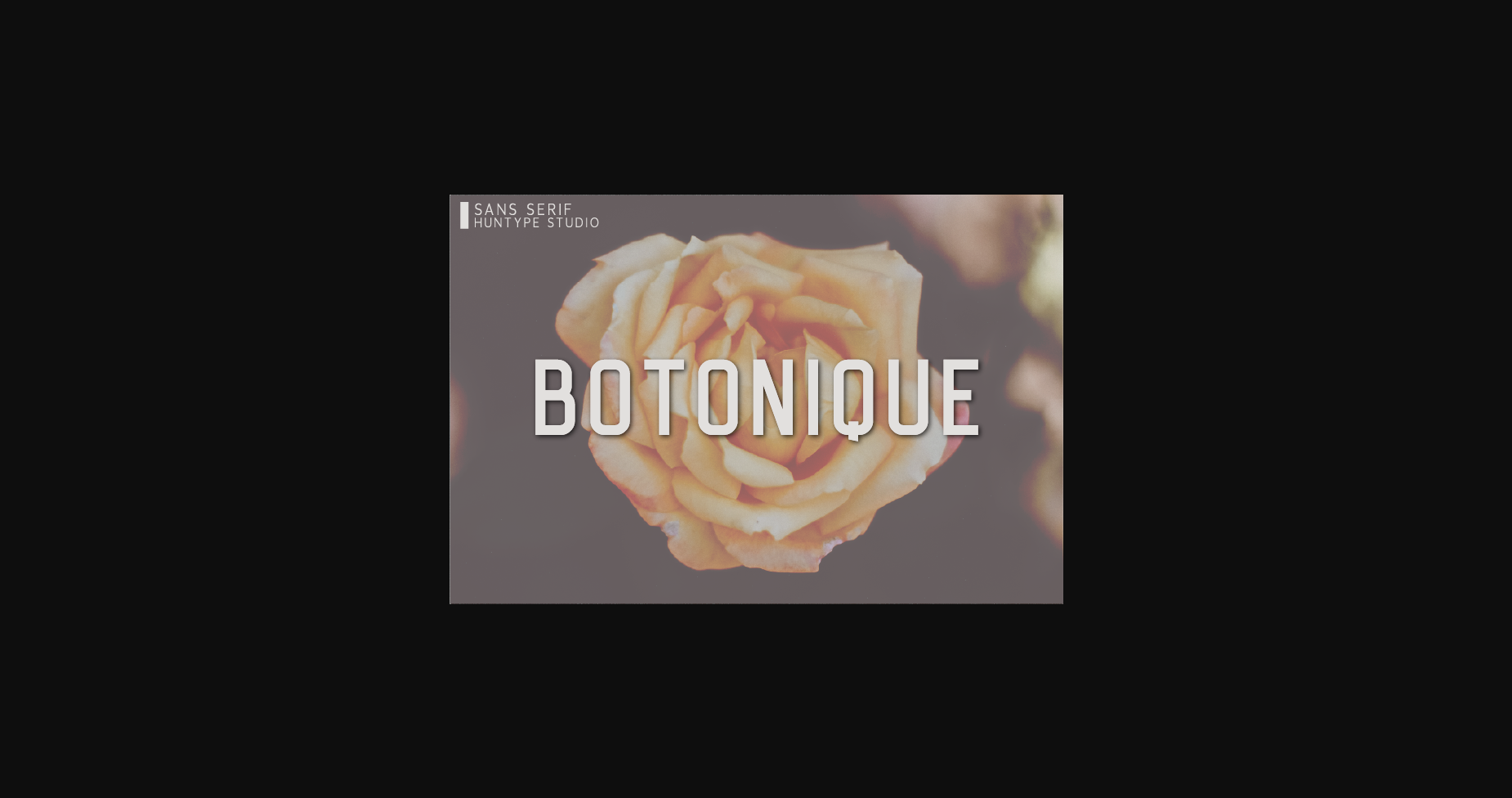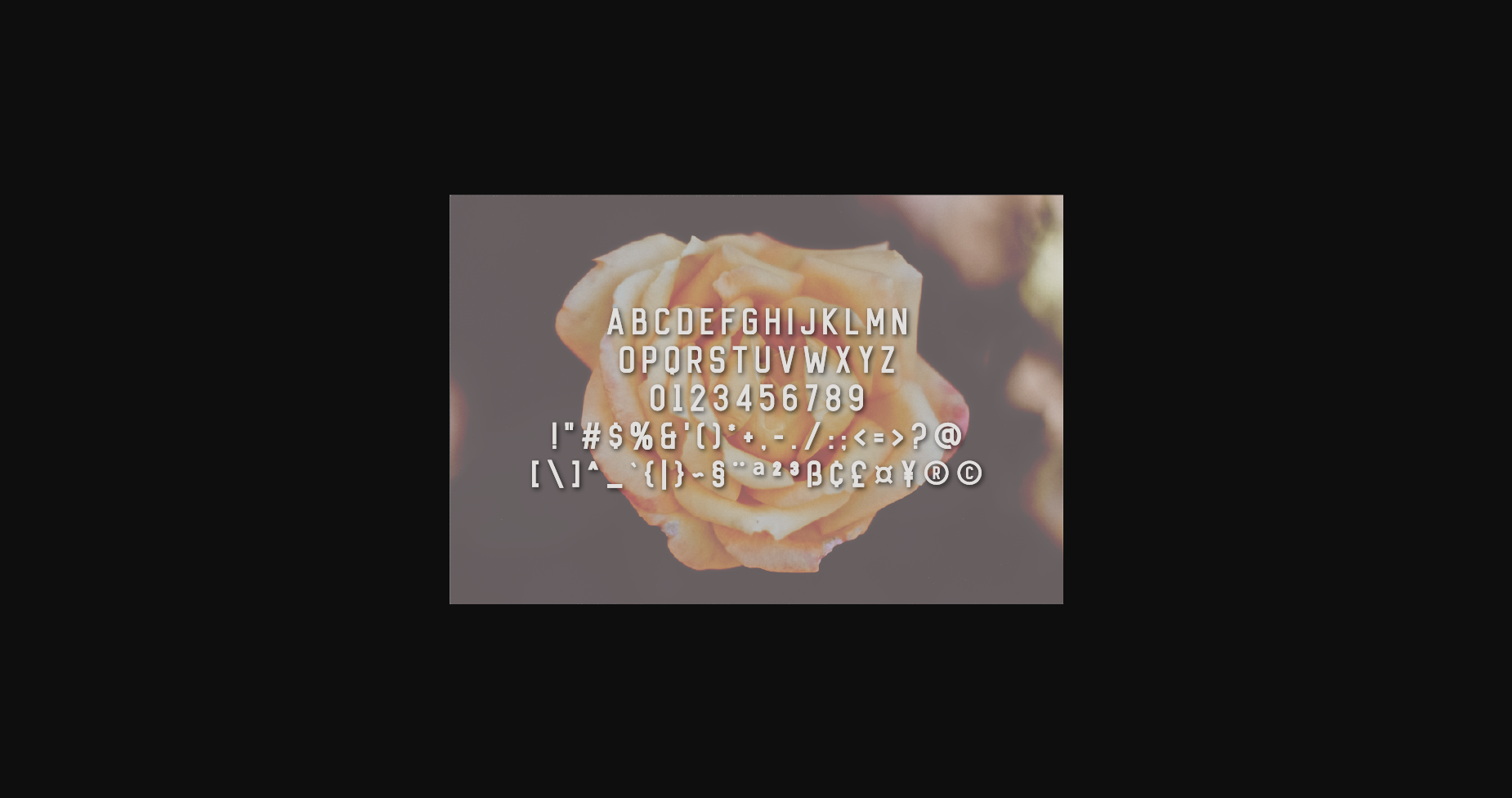
About Botonique Font
Botonique is a simple and clean sans serif font. Whatever the topic, this font will be a wonderful asset to your font library, as it has the potential to enhance any creation.